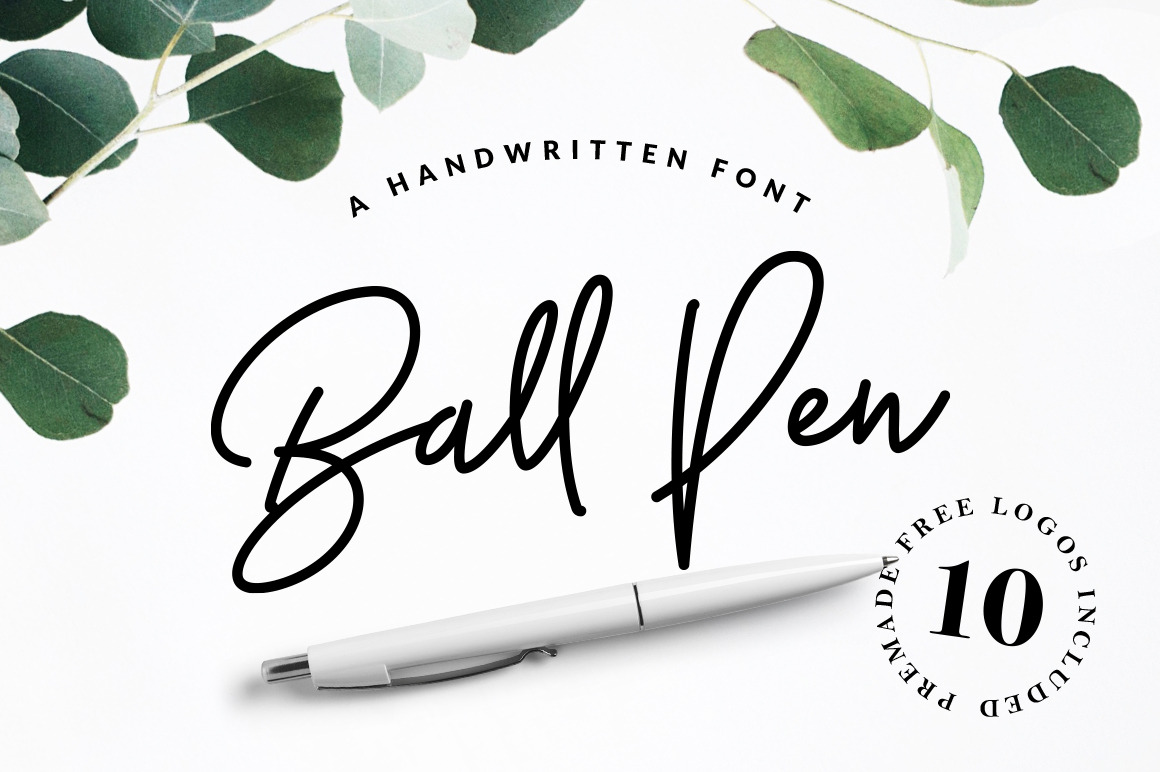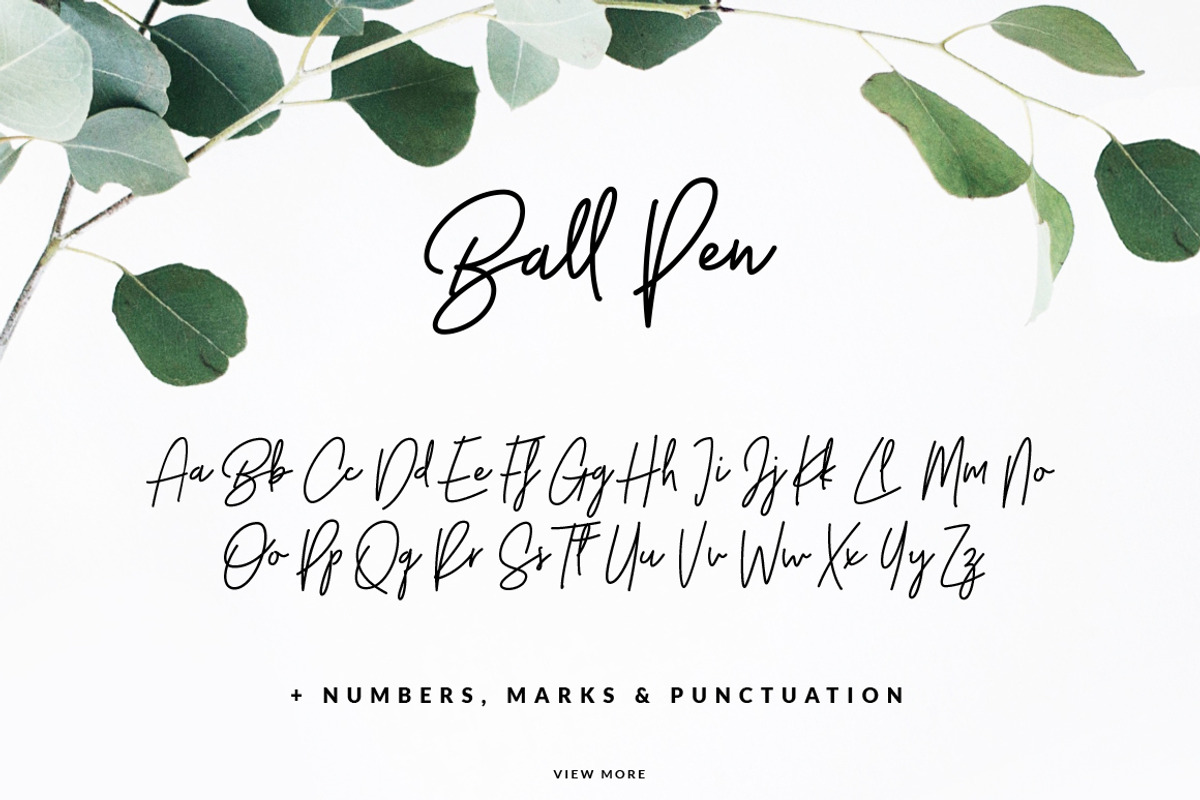
Ball Pen Handwritten Font
Ball Pen is a unique handwritten font. Its unique flow and easy signature style makes it perfect to use for logos, signatures, quotes, badges, labels, packaging design, blog headlines or simply use it in your next design project.
Ball Pen comes with upper and lowercase Basic Characters, Numbers, Marks and Punctuation. Diacritics are also available for Western and Central European Languages. As a feature you have also the standard Ligature, Alternates and Swashes.
This is one of the few handwritten fonts I have that work really well. I love the quality the lines have to it, they join up seamlessly when tracking set to 0 and has a natural feel to it. Thanks!